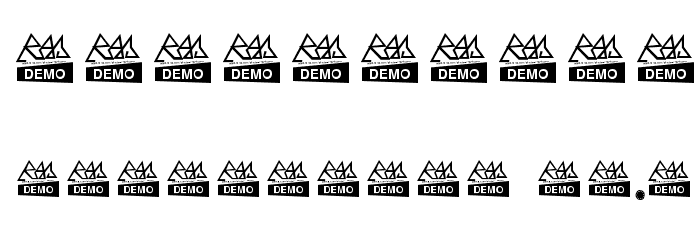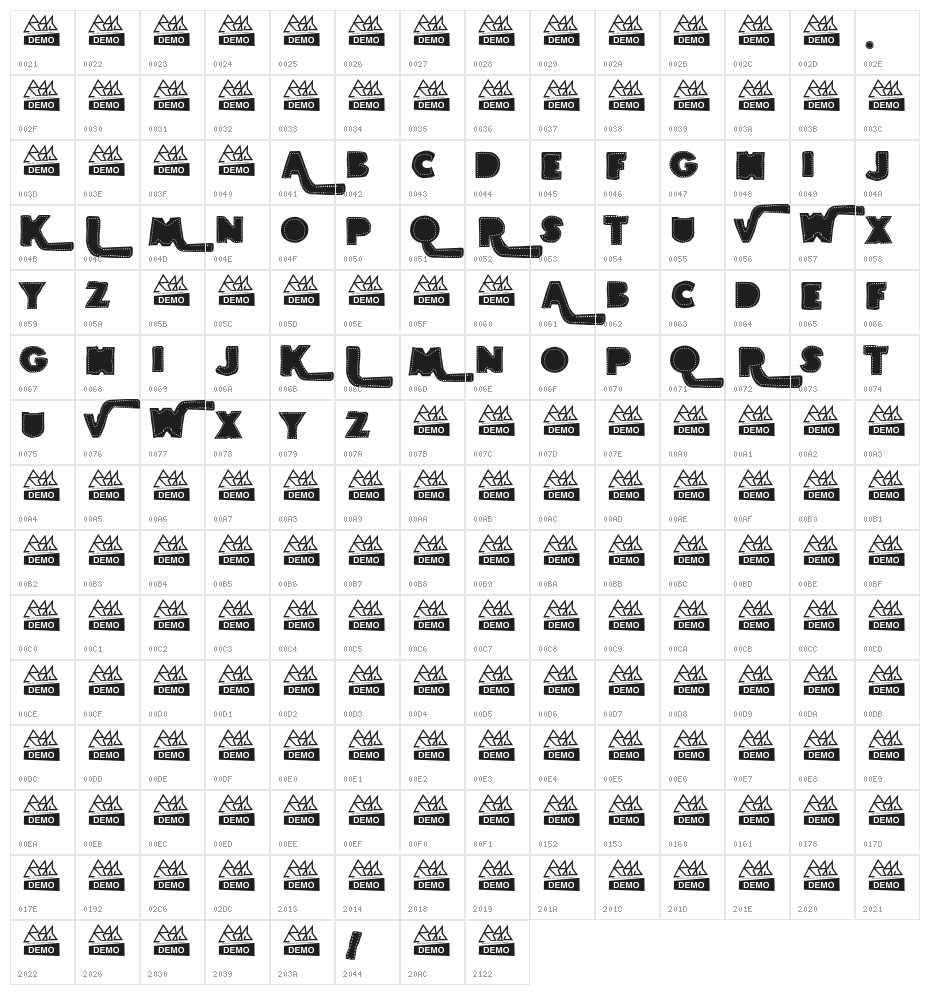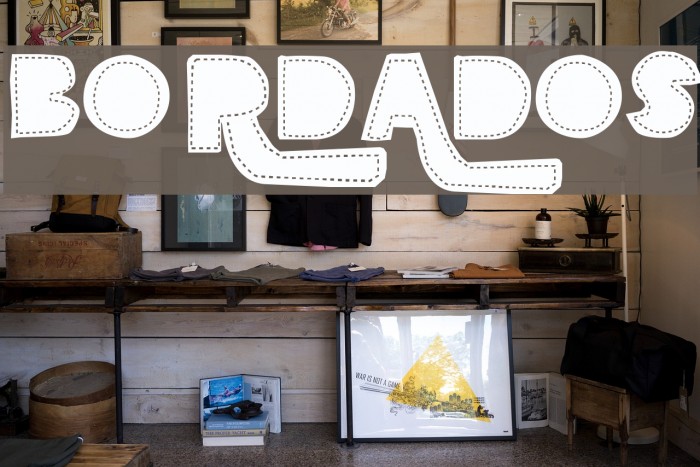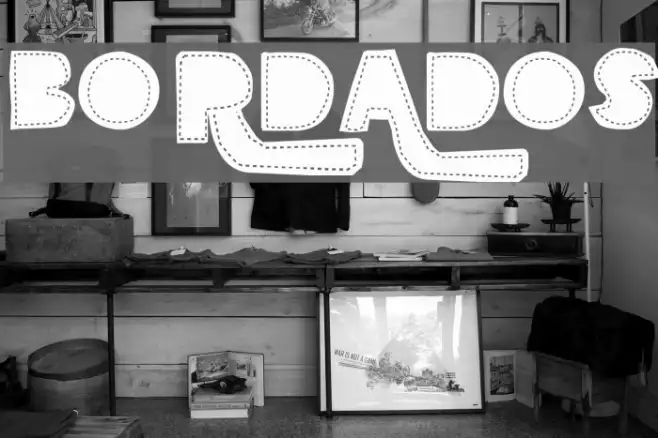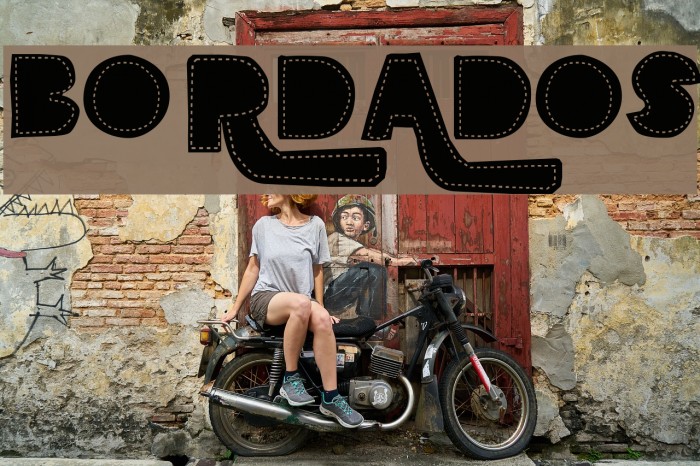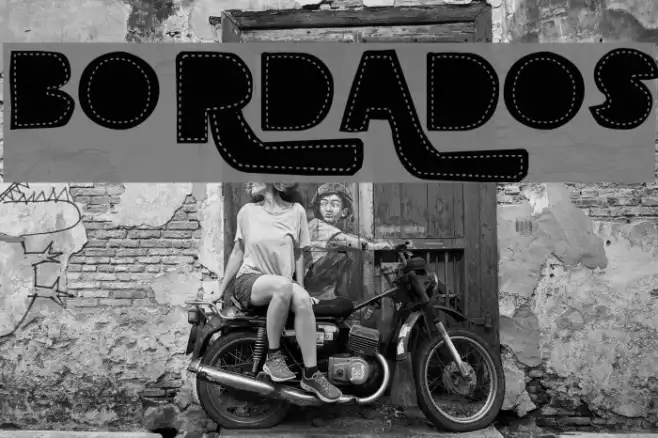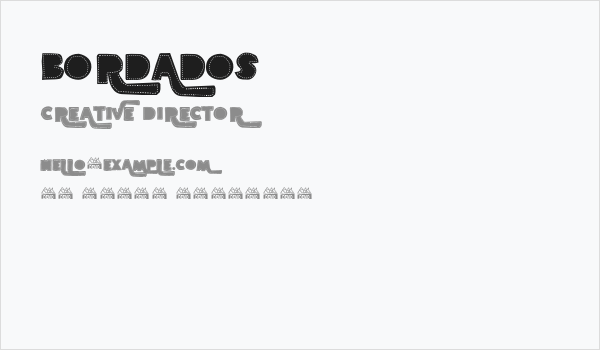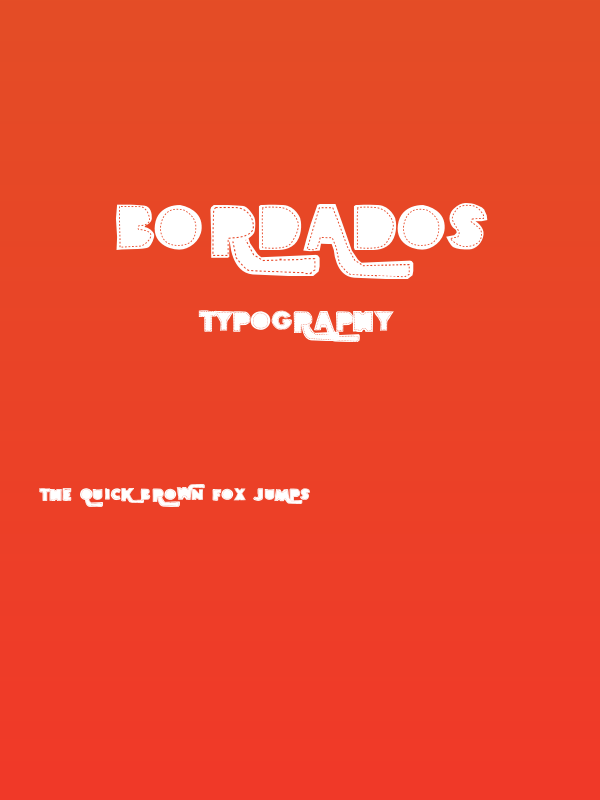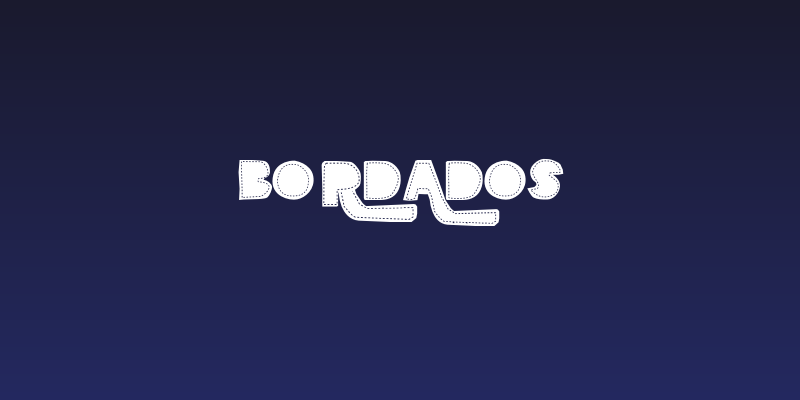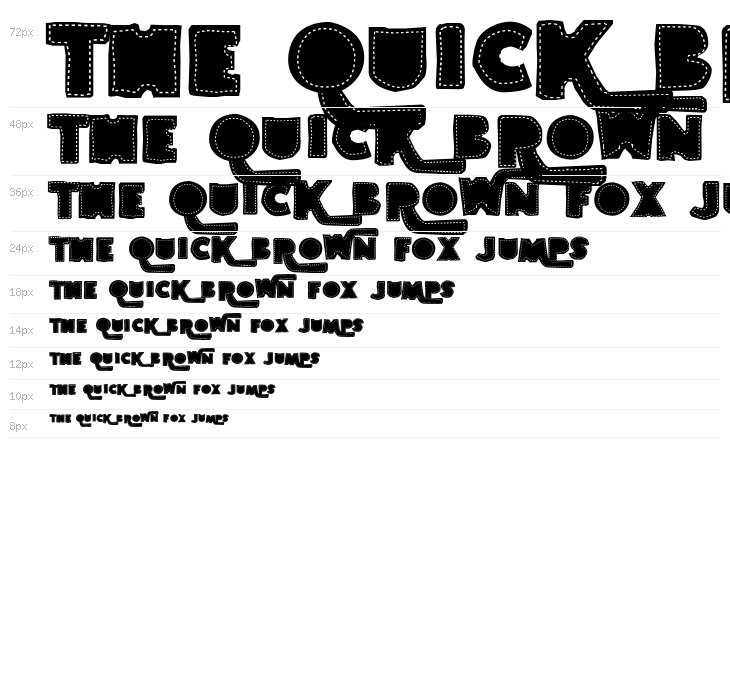
BORDADOS Font
This font features a bold and playful design with a unique embroidered effect, giving each letter a stitched appearance. The characters are outlined with a dotted pattern, reminiscent of traditional embroidery techniques. The font has a decorative and handcrafted feel, making it stand out with its artistic flair. The uppercase letters are prominent, with a consistent width and height, while the lowercase letters maintain the same style, ensuring uniformity. The font's whimsical nature is further emphasized by its creative use of lines and dots, making it ideal for projects that require a touch of creativity and uniqueness.
| Use Case | Logos, Headlines, Crafting Projects |
| Proposed Projects | Ideal for crafting projects, children's book covers, playful branding, and DIY-themed designs. |